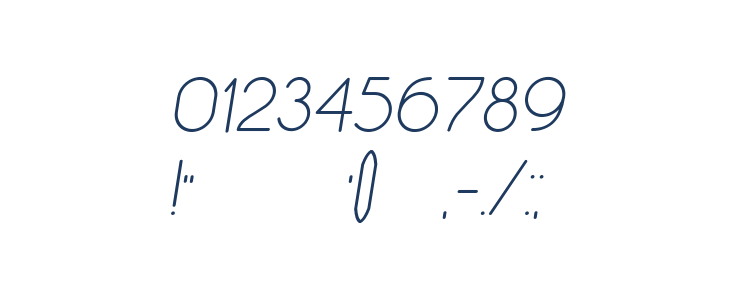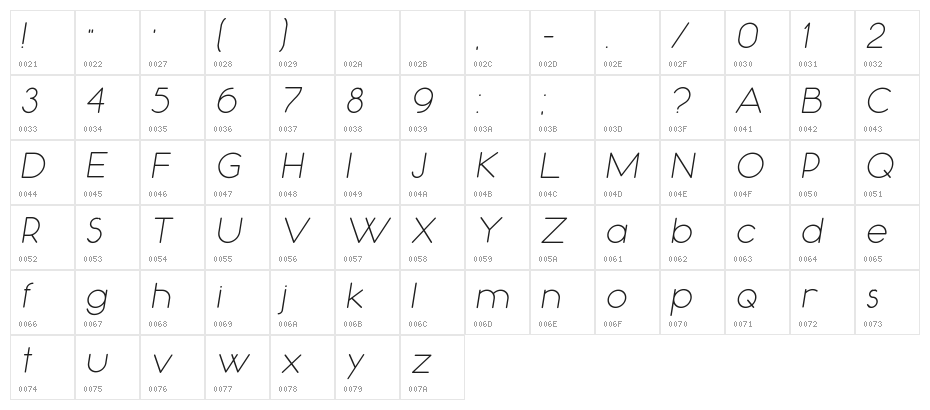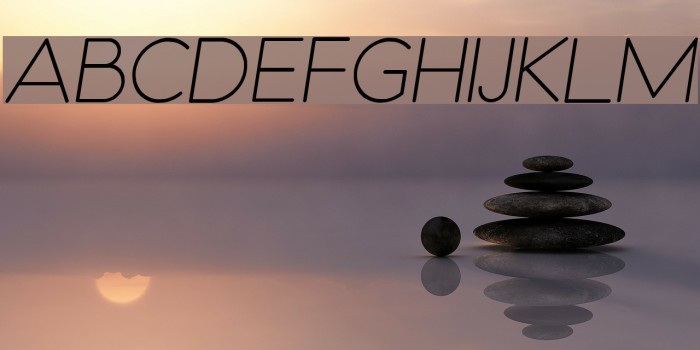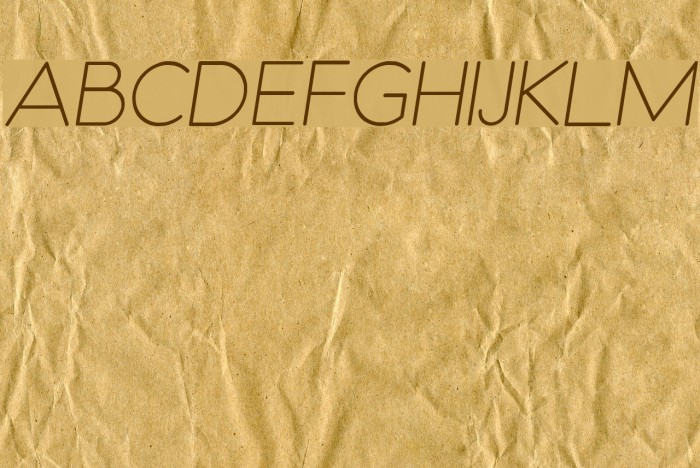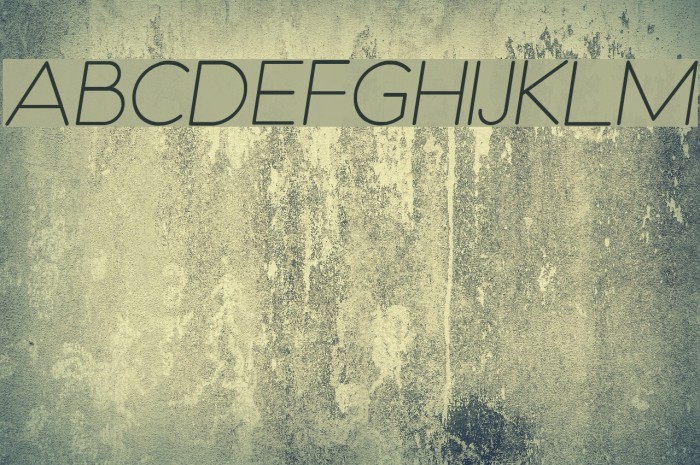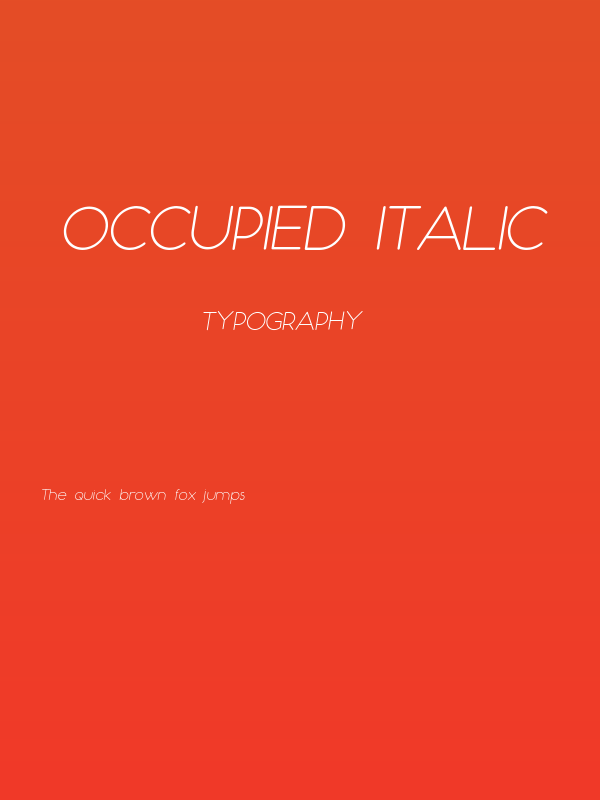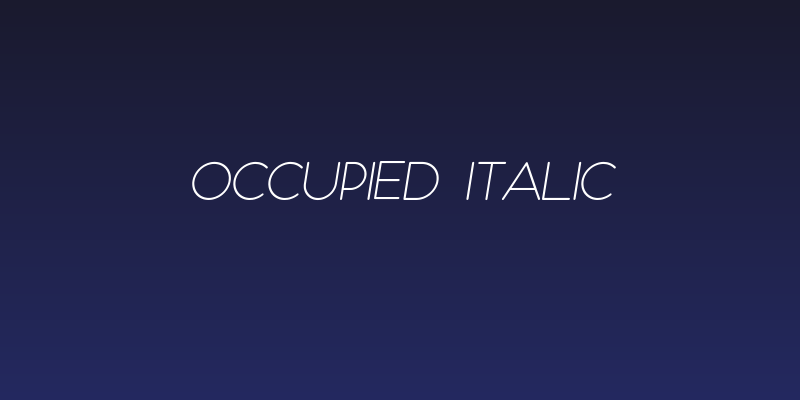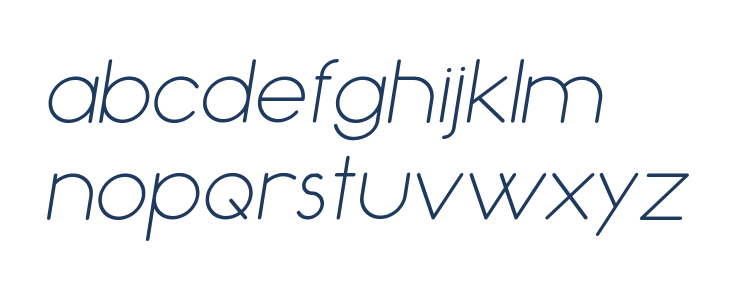
Occupied Italic Font
Occupied Italic Description
This font features a sleek and modern italic style with clean, smooth lines and a slight slant that adds a sense of motion and elegance. The characters are evenly spaced, providing a balanced and harmonious appearance. The uppercase letters are tall and narrow, while the lowercase letters maintain a consistent height, contributing to a cohesive look. The numerals are clear and legible, with a uniform stroke width that enhances readability. Special characters are designed with the same attention to detail, ensuring they blend seamlessly with the rest of the font. Overall, this font exudes a contemporary and professional vibe, making it suitable for a variety of design applications.
| Proposed Projects | Ideal for branding, editorial design, digital interfaces, and modern advertising. |